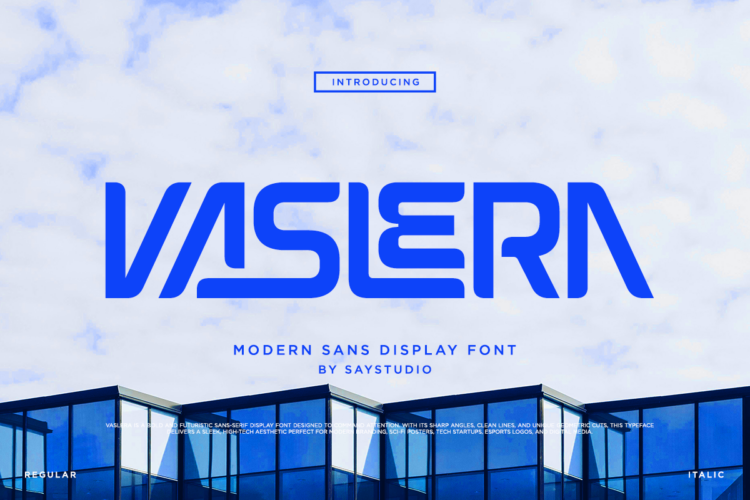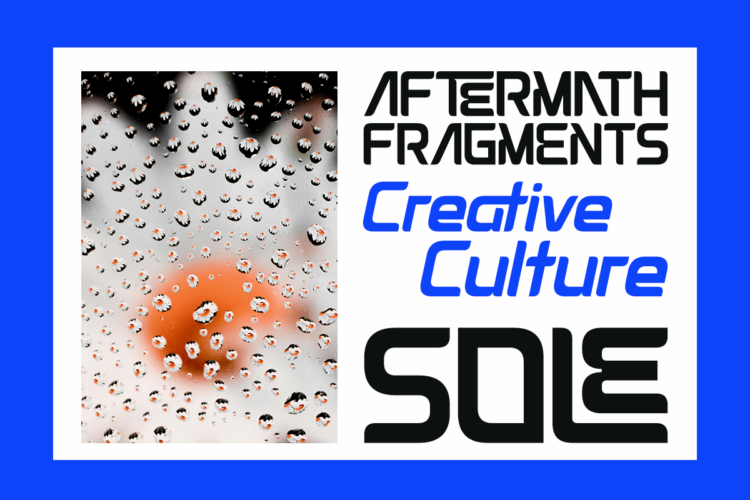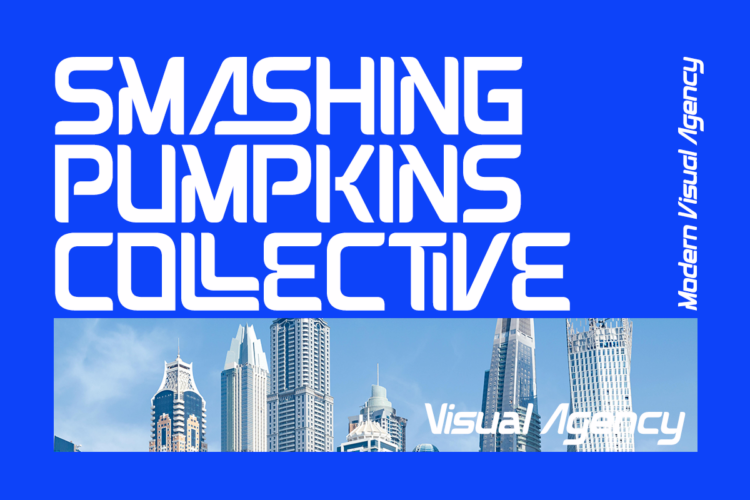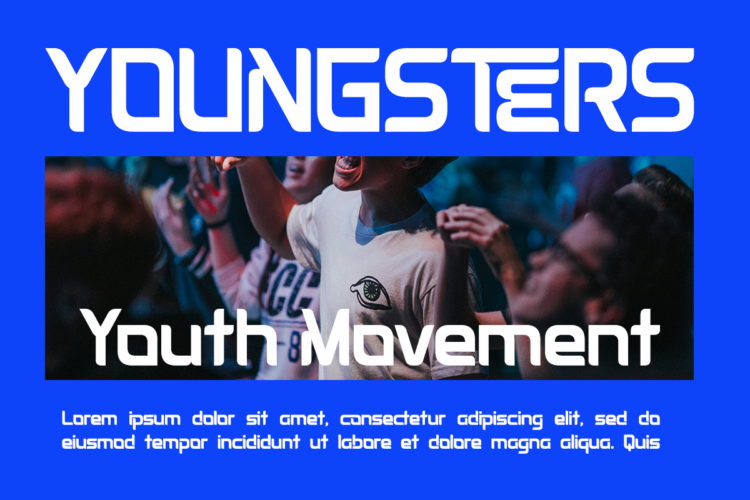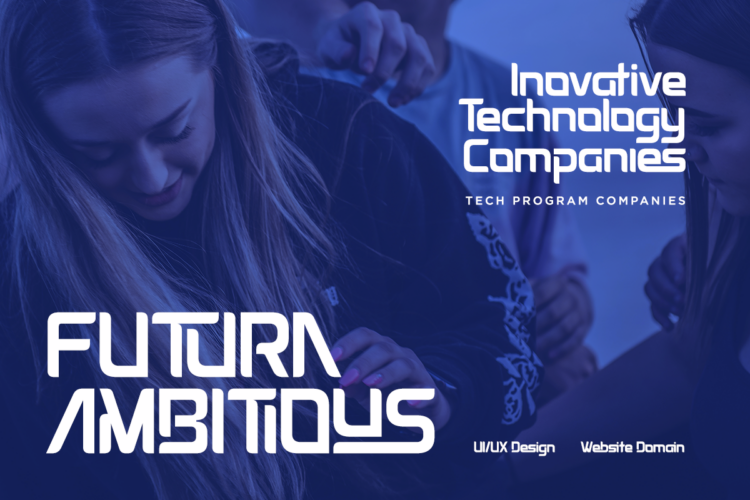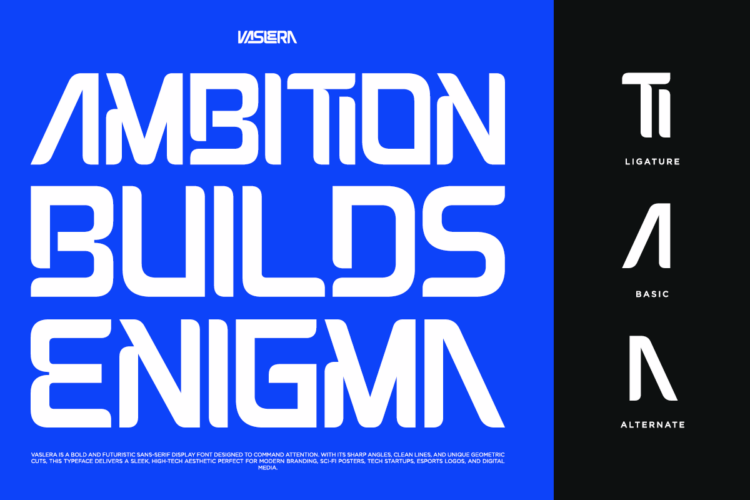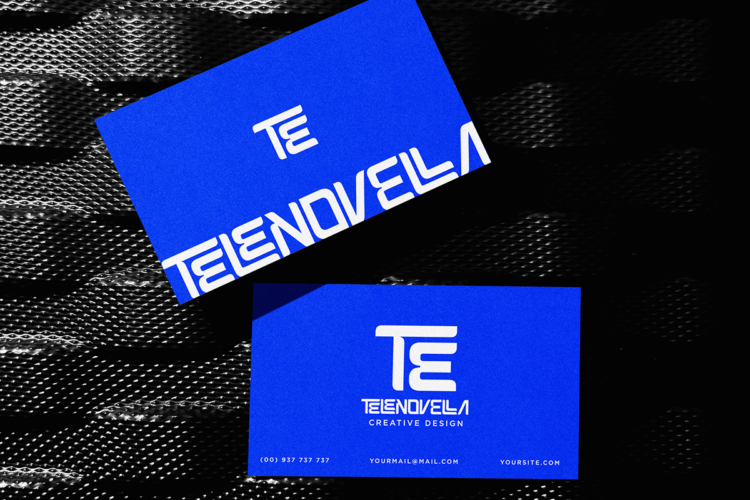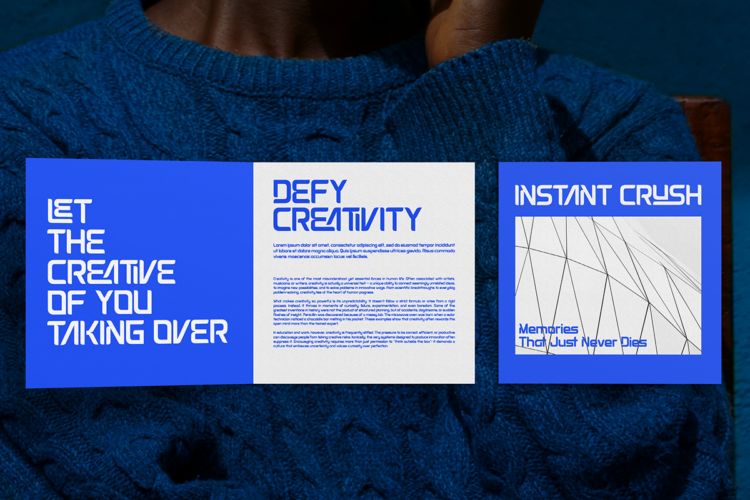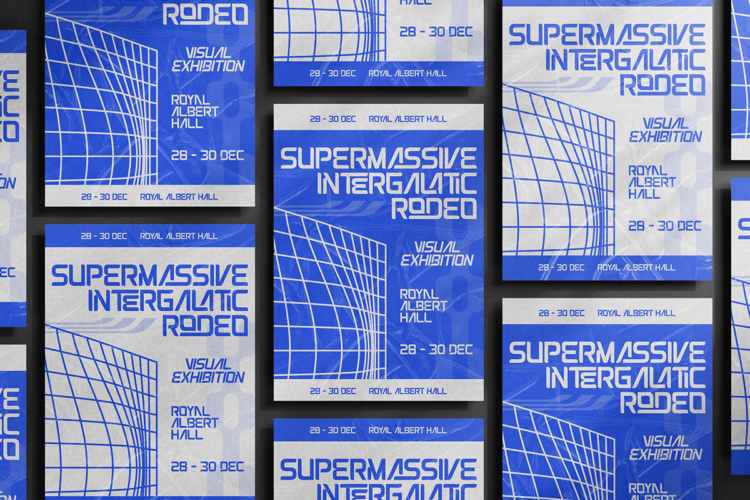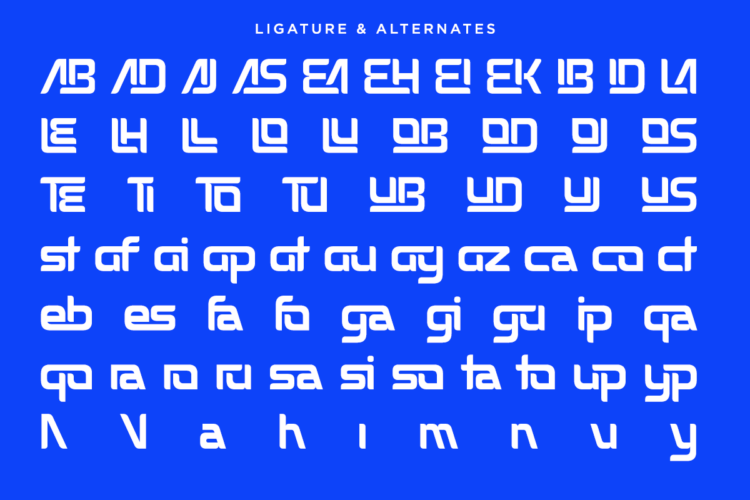
Vaslera is a futuristic modern sans display font crafted with bold geometric construction and sleek sci-fi aesthetics. Featuring clean angular forms, distinctive letter shapes, and a highly recognizable visual identity, Vaslera is designed to deliver powerful headlines and memorable branding. Its contemporary style balances readability with innovation, making it a perfect choice for creators seeking a bold technological appearance.
Ideal for technology brands, gaming projects, esports identities, startups, UI/UX design, websites, posters, packaging, automotive graphics, digital interfaces, and corporate branding, Vaslera brings versatility across both print and digital media. Complete with multilingual support, ligatures, numerals, punctuation, and symbols, this typeface provides everything needed for professional creative projects.
Whether you’re designing logos, product packaging, advertising campaigns, social media graphics, YouTube thumbnails, mobile applications, event posters, editorial layouts, or futuristic visual identities, Vaslera helps your work stand out with confidence. Its modern geometric style delivers a clean, energetic, and forward-thinking look that perfectly represents innovation and next-generation design.
– Standard Ligature, Uppercase, & Lowercase
Vaslera – Futuristic Modern Sans Display